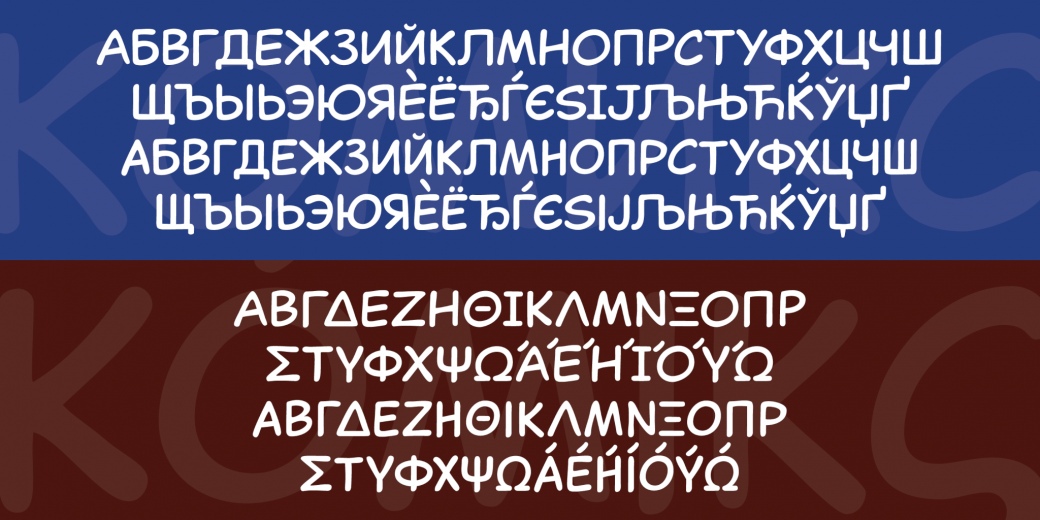
Captain Comic Font
Captain Comic Font is perfect for superhero comic branding, children's entertainment marketing, heroic event graphics, adventure camp signage, comic book store displays, animated series promotions, action figure packaging, and dynamic youth-oriented campaigns.
What makes Captain Comic Font exciting is its heroic adventure that embodies the bold courage and dynamic action of superhero storytelling with comic book authenticity and heroic spirit. The font features dynamic letterforms with action-packed angles and heroic character that evoke comic panels, superhero capes, and the thrilling excitement of heroic adventures and comic book heroism. Its distinctive comic styling and adventurous appeal communicate courage, action, and heroic determination, making every message feel powered by superhuman strength and touched by the inspiring energy of heroic adventure and comic book excitement.
The Captain Comic Font family includes regular weight with uppercase and lowercase letters, numerals, punctuation marks, and special characters. Premium versions often feature dynamic alternates and heroic elements that enhance the action-packed, comic aesthetic perfect for entertainment and youth applications.
The heroic character of Captain Comic Font makes it particularly valuable for comic book publishers, children's entertainment venues, and superhero-themed businesses. Its excellent visibility ensures action-packed messaging and heroic communications capture attention while maintaining the distinctive comic aesthetic that appeals to audiences seeking authentic superhero experiences and heroic entertainment.
Comic entertainment marketers appreciate how Captain Comic Font effortlessly conveys heroic authenticity and comic excitement. The font's dynamic proportions and action details create compelling brand materials that establish connections with audiences who value superhero stories, heroic adventure, and the inspiring courage of comic book heroes and dynamic action entertainment.
The versatile heroism of this typeface extends to youth camps, educational programs, and heroic character development where comic authenticity enhances inspirational credibility and heroic appeal. Captain Comic Font Free Download provides creative professionals with an essential tool for developing memorable, hero-driven designs that resonate with audiences who embrace superhero values, heroic adventure, and the dynamic excitement of comic book heroism in their entertainment and inspirational experiences.